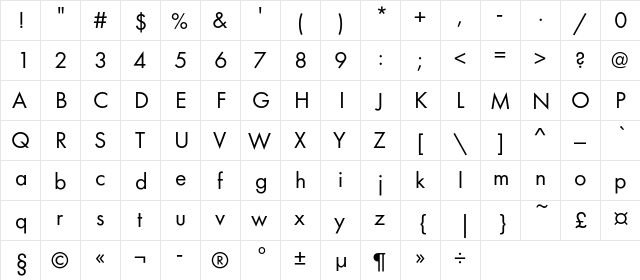
FuturaBookC Regular
Design Context for FuturaBookC Typeface
FuturaBookC channels digital-age aesthetics through its sharp, structured letterforms — ideal for brands that want to signal innovation.
Pro Tip: Try FuturaBookC with generous letter-spacing in UI labels and navigation — the geometric forms benefit from room to breathe.